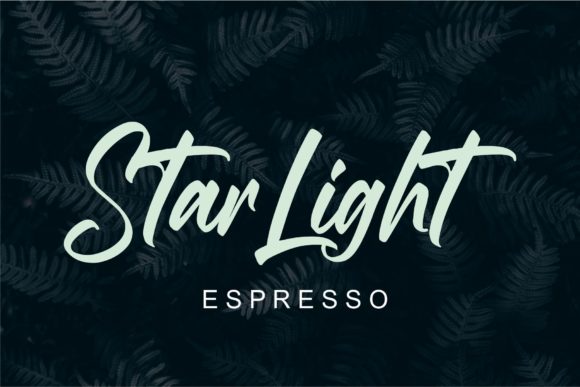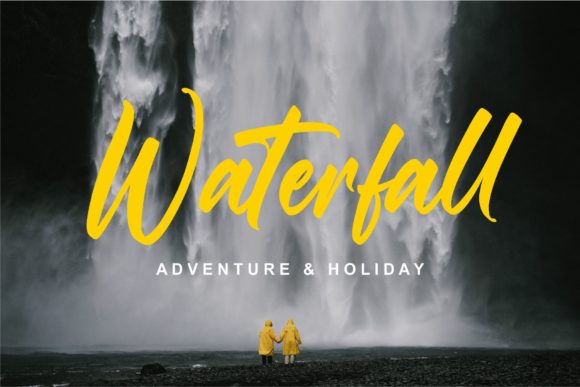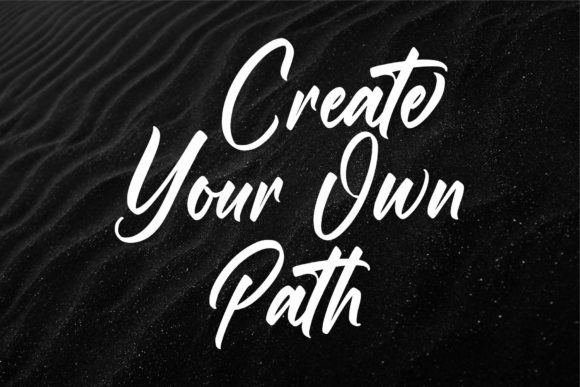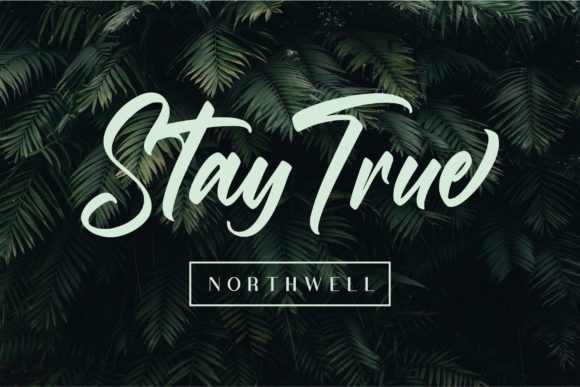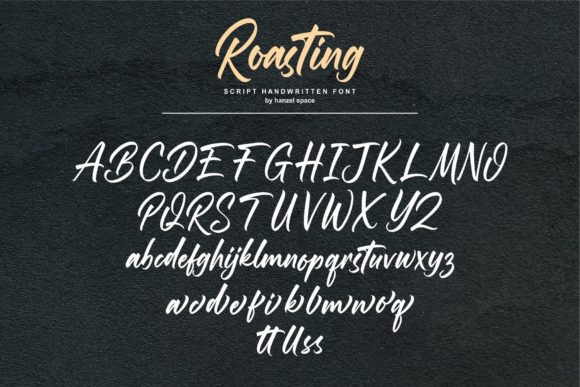
Roasting Script Font
About Roasting Script Font
Roasting Script is a captivating and elegant script font that exudes charm and sophistication. Its beautifully flowing letters make it a perfect choice for a wide range of designs, from wedding invitations and thank you cards to quotes, greeting cards, logos, and business cards.
The unique characteristics of Roasting Script, such as its gentle curves and graceful strokes, add a touch of elegance to any design. The font captures the essence of handwritten calligraphy, creating a sense of artistry and craftsmanship that enhances the overall aesthetic of your projects.
For wedding invitations, Roasting Script adds a romantic and intimate feel, setting the tone for a special day. Its fluid and expressive strokes create a sense of movement, making each letter a work of art. Whether it’s the couple’s names or the details of the event, Roasting Script brings an air of elegance and sophistication to the design.
In thank you cards and greeting cards, Roasting Script adds a personal and heartfelt touch. Its handwritten style conveys warmth and sincerity, making each message feel more meaningful and authentic. The font elevates your words, turning them into a visual expression of gratitude and well-wishes.
When it comes to quotes, Roasting Script adds a touch of elegance and sophistication. The graceful curves and flowing lines of the font give the words a sense of beauty and poetry. Whether you’re creating inspirational quotes, motivational posters, or social media graphics, Roasting Script adds an extra layer of visual appeal and impact.
For logos and business cards, Roasting Script offers a unique and memorable touch. Its elegant and handcrafted look sets your brand apart, conveying a sense of style and professionalism. The font adds a personal and approachable feel to your brand identity, making it more relatable and engaging to your audience.
In summary, Roasting Script is a versatile and elegant script font that enhances the beauty and impact of various designs. Its charm and sophistication make it a perfect choice for wedding invitations, thank you cards, quotes, greeting cards, logos, business cards, and more. With Roasting Script, you can create visually stunning and memorable designs that leave a lasting impression.